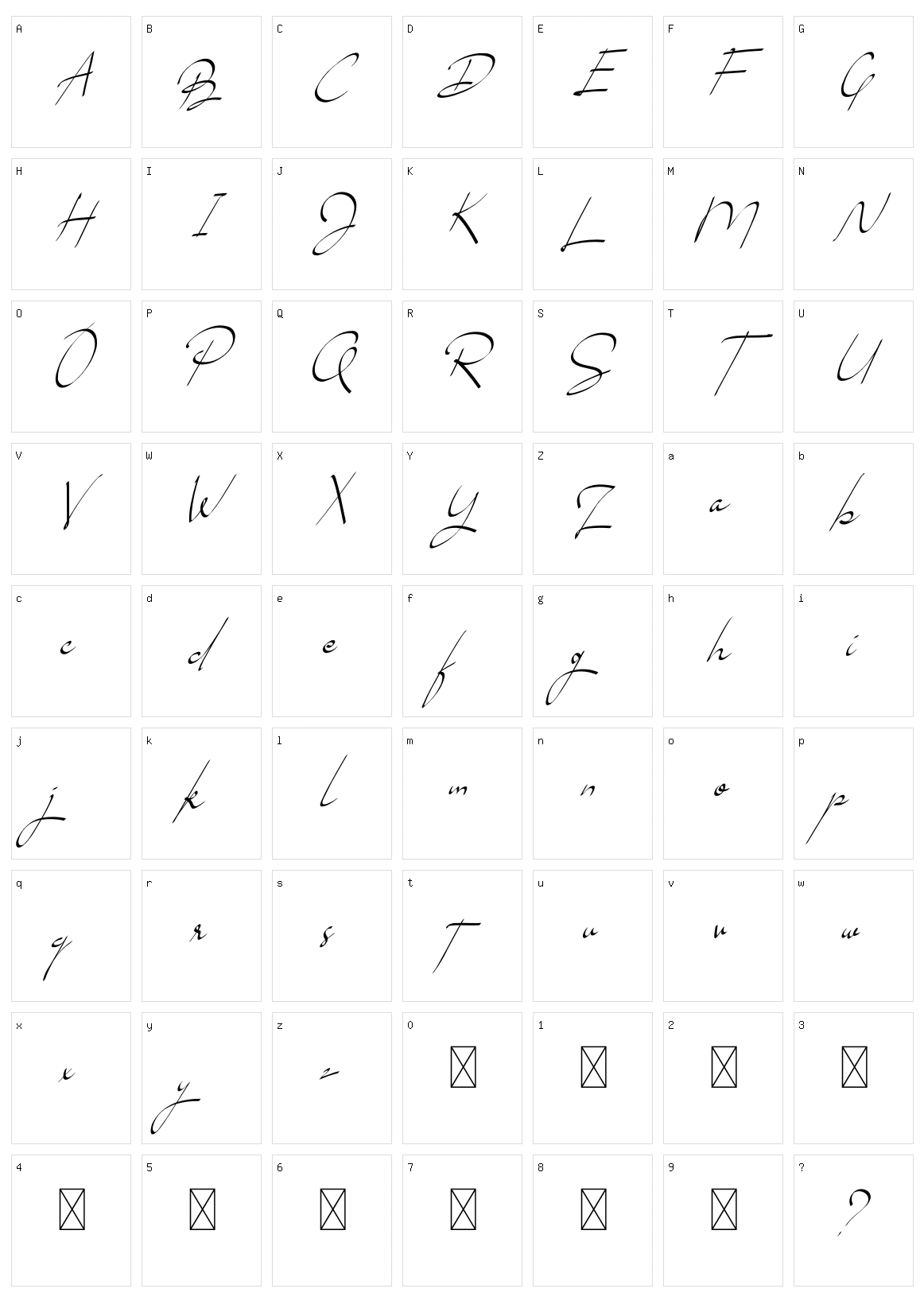
The free font Brouklyn Signature is carefully designed by Haris Gozali, showcasing a thoughtful balance of creativity and usability and falls under the Script font style. When you download the ZIP file, it contains only 38.73 KB of font files, making it lightweight and quick to download. Please review the license details below to understand permitted usage and distribution rights. If license information is not available, we recommend using this font for personal projects only or contacting the author directly for commercial usage permissions.